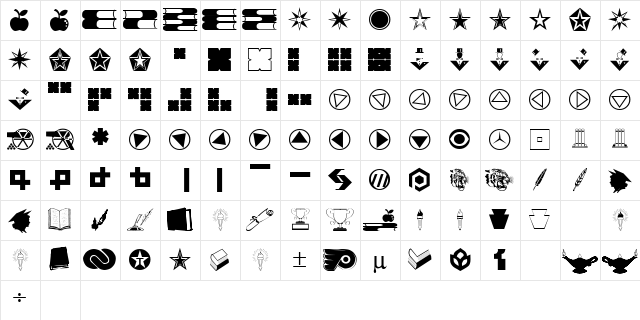
Kensington Regular
Design Context for Kensington
Kensington is a composed and adaptable typeface that performs quietly and consistently across a wide range of design contexts.